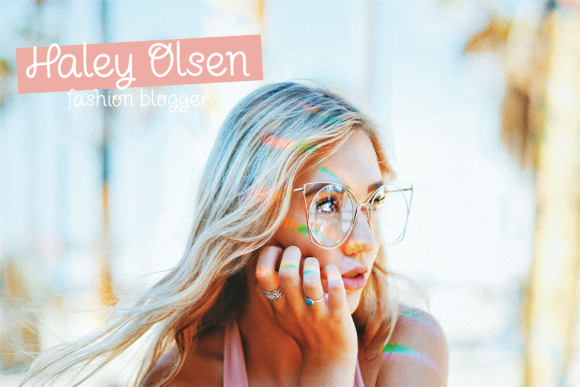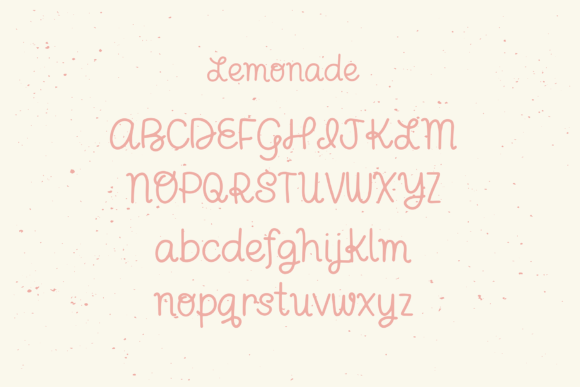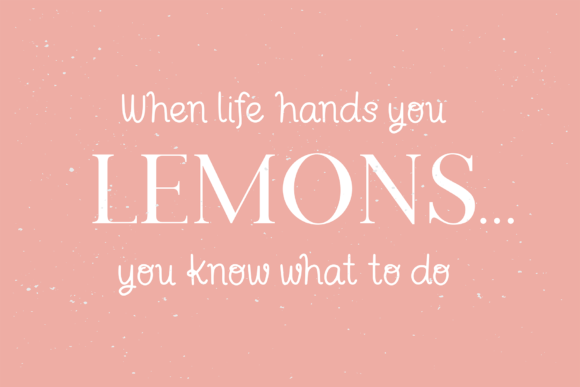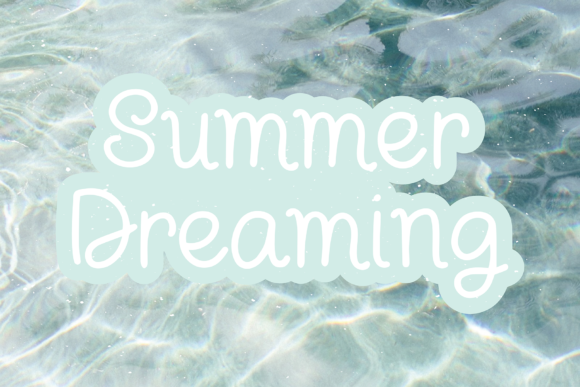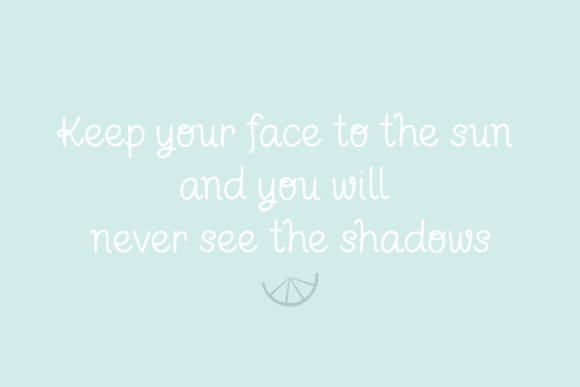
Lemonade Font
About Lemonade Font
Lemonade is a charming and delightful script font that exudes a sense of cuteness and liveliness. With its playful and lively style, this font is a perfect choice for infusing your designs with a dose of sweetness and joy.
The delicate and flowing letterforms of Lemonade give it a graceful and elegant appearance. Its swirly and curvaceous characters add a touch of whimsy and enchantment to the overall design. Whether you’re working on greeting cards, invitations, posters, or any other project, Lemonade will bring a sense of life and vibrancy to your creations.
This font’s cute and lively nature makes it especially suitable for designs that are targeted towards children or projects that require a cheerful and friendly aesthetic. From children’s books to party invitations, Lemonade can add a touch of magic and wonder to any project.
Moreover, Lemonade is a versatile font that can be used for a wide range of applications. It works well in both digital and print media, and its legibility makes it ideal for headlines, titles, and other prominent text elements.
In crafting logos and branding, Lemonade can bring a unique and fresh appeal to your visual identity. Its playful and lively style can help convey a sense of friendliness and approachability, making it easy for your brand to connect with your target audience.
When used in social media graphics or website designs, Lemonade can add a pop of color and energy to your content, making it more engaging and eye-catching.
Overall, Lemonade is a cute and delicate script font that can breathe life into your designs. Its sweet and lively style makes it an excellent choice for projects that require a touch of charm and enchantment. So, embrace the delightful essence of Lemonade and let it brighten up your designs with its cheerful and full-of-life character.